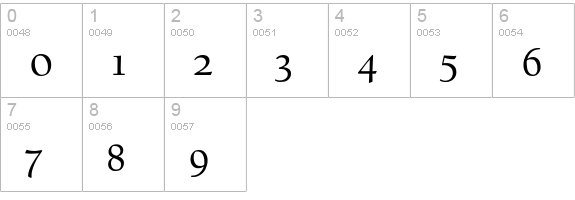
CalifornianText-RomanExpert Font Details
CalifornianText-RomanExpert is a sophisticated and elegant font that exudes a timeless charm. With its classic serif style and expertly crafted details, this typeface is perfect for adding a touch of refinement to any project. The graceful curves and clean lines of CalifornianText-RomanExpert make it ideal for conveying a sense of professionalism and sophistication. Best of all, CalifornianText-RomanExpert is available for free download at FontsMarket.com. Whether you're working on a formal invitation, a stylish logo, or a sleek website design, this versatile font is sure to elevate your work to the next level. Download CalifornianText-RomanExpert today and add a touch of elegance to your projects.